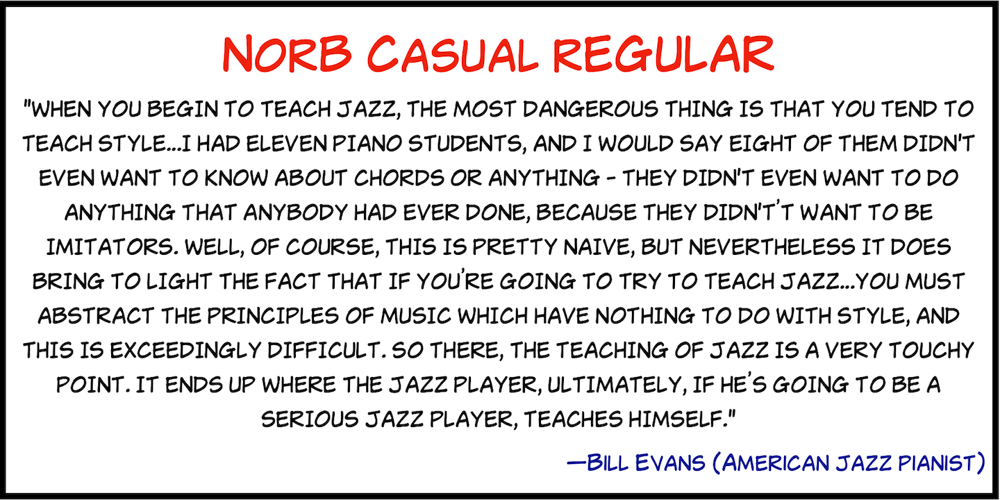
NorB Casual
NorB Casual font
NorB Casual Font Family was designed by Nor Eddine Bahha and published by NorFonts. NorB Casual contains 16 styles and family package options. NorB Casual is a handwritten text font which my daily casual writing, it can be used with any word processing program for text and display use, print and web projects, apps and Comic Books, graphic identities, branding, editorial, advertising, scrapbooking, cards, and invitations or even just for fun.This font comes with 16 styles, Light, Normal Bold and Heavy each with their Italic and Condensed version.